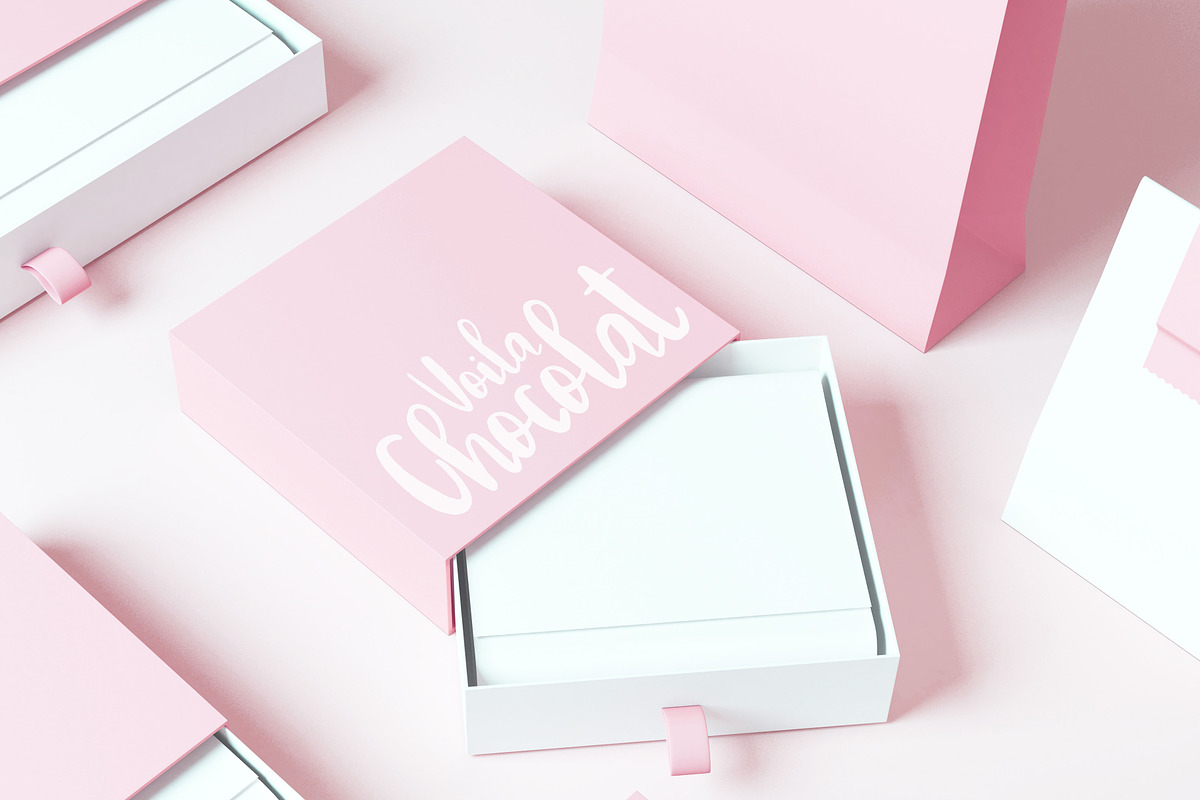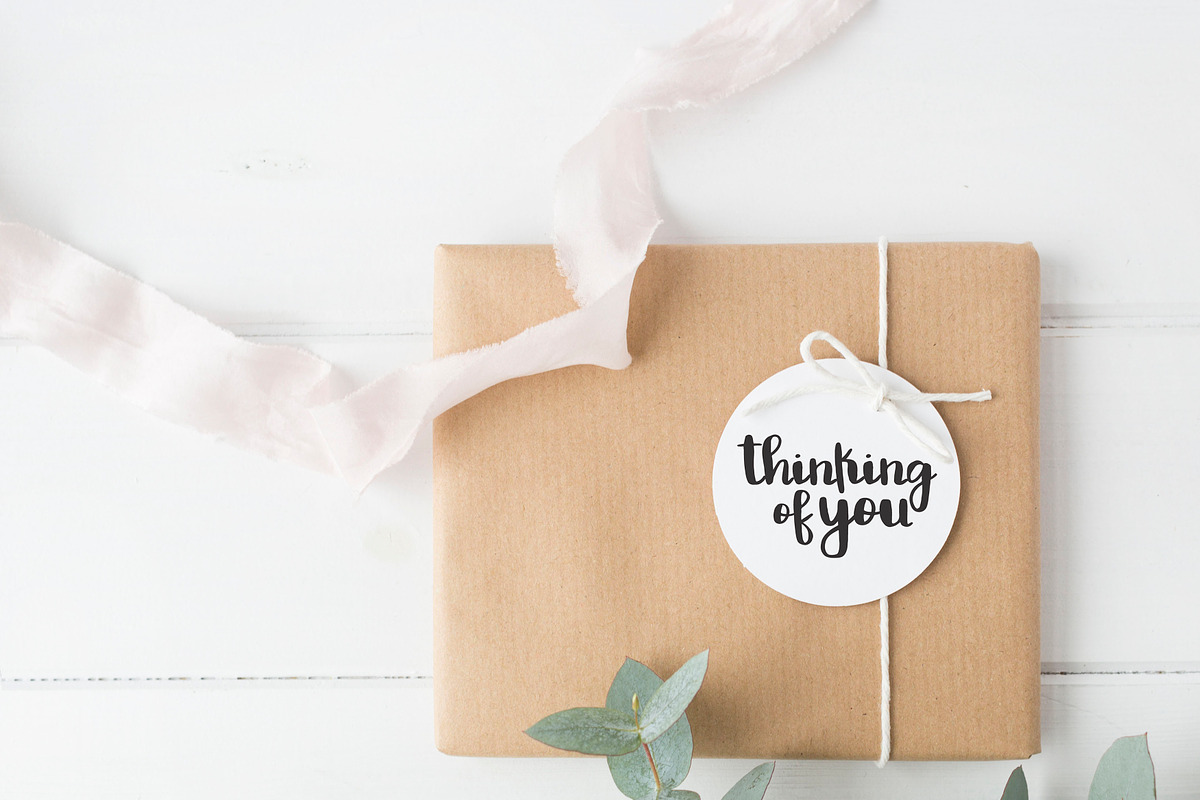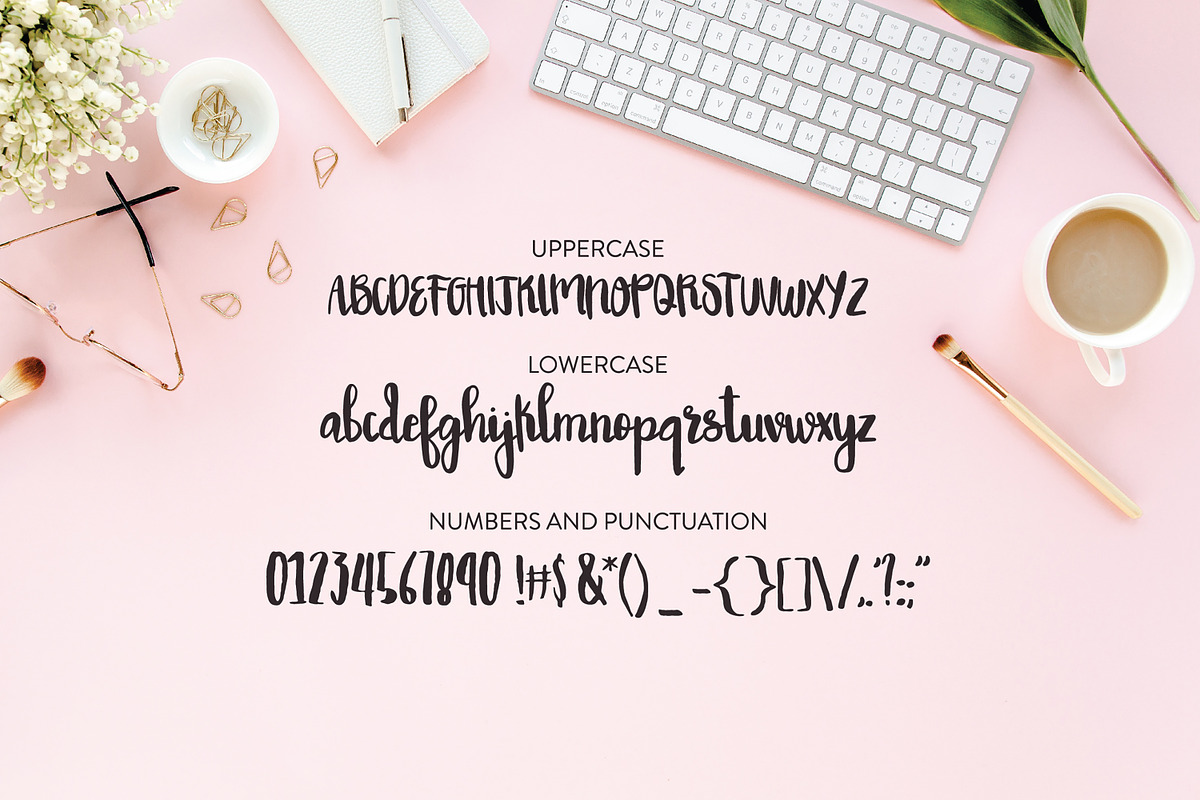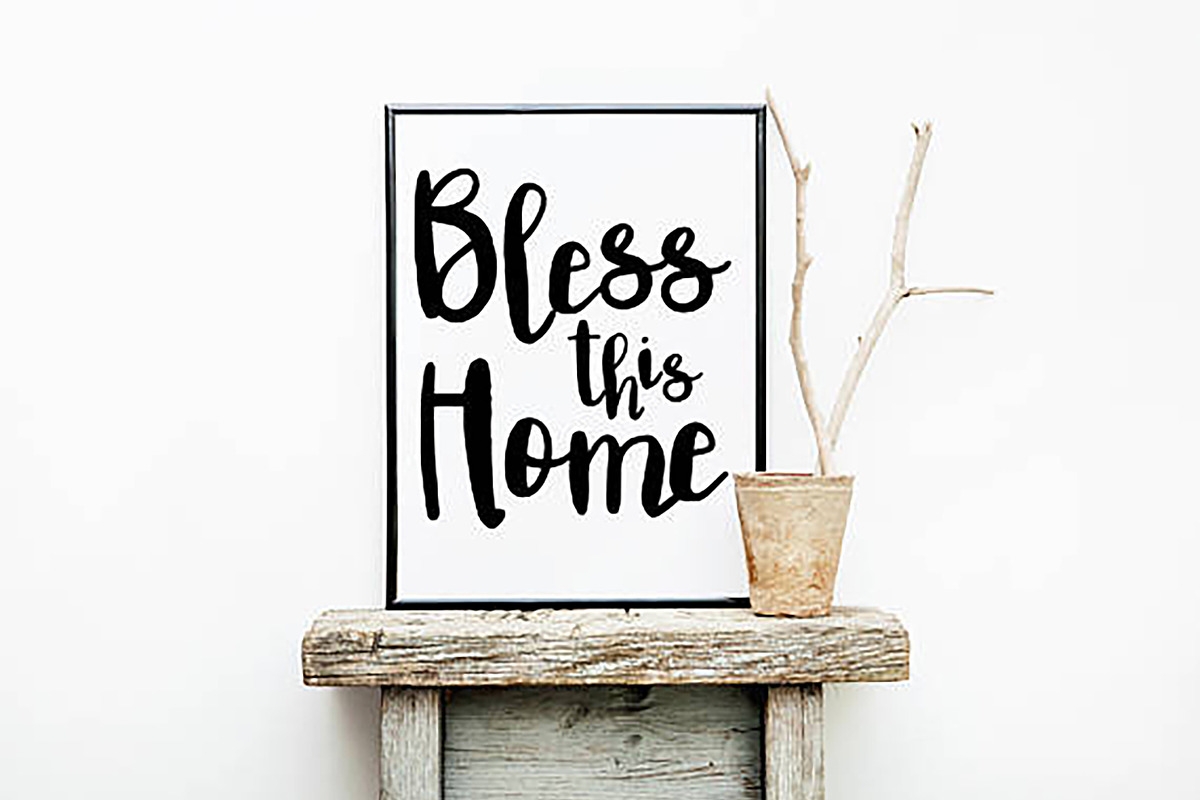
Bella Rose Brush Script Font
{ Typographic script font hand lettered with love by Dixie Type Co. }
A handlettered brush font including all upper and lowercase letters and 35 additional punctuation glyphs. This is a textured/distressed font and edges are not completely smooth.
- } A handlettered brush font including all upper and lowercase letters and 35 additional punctuation glyphs.